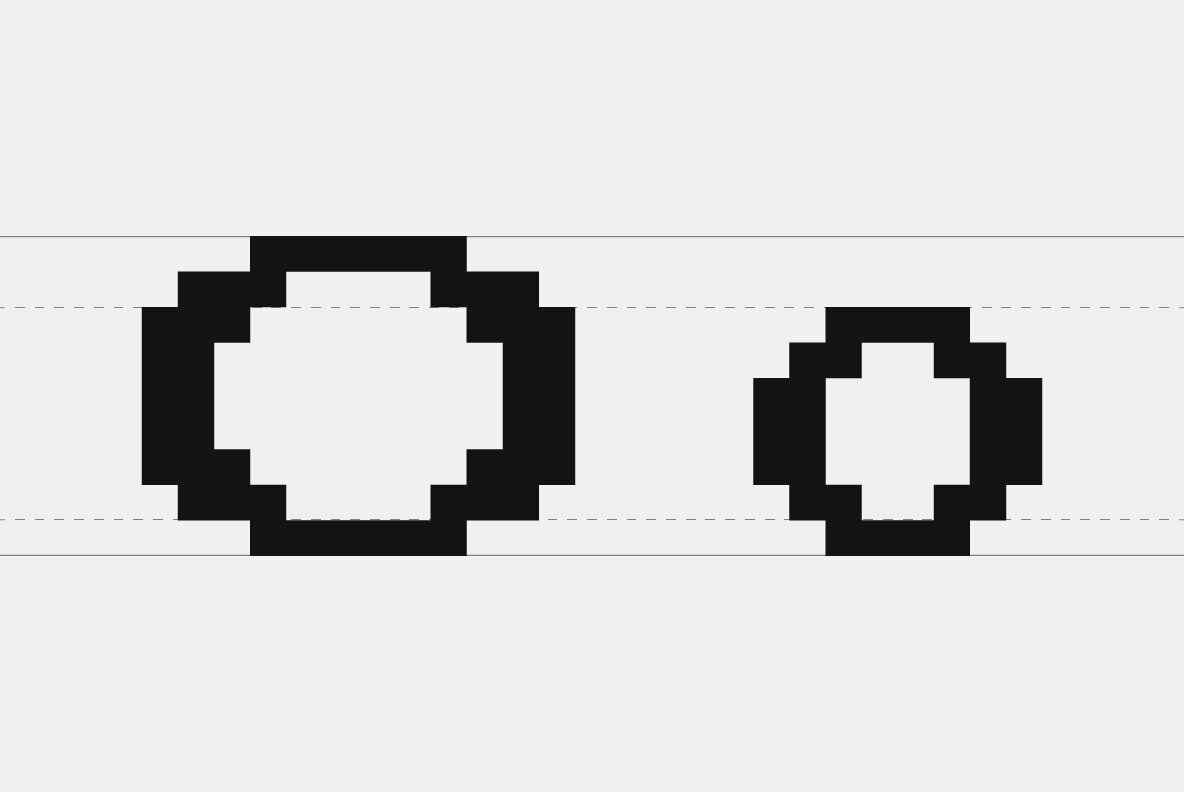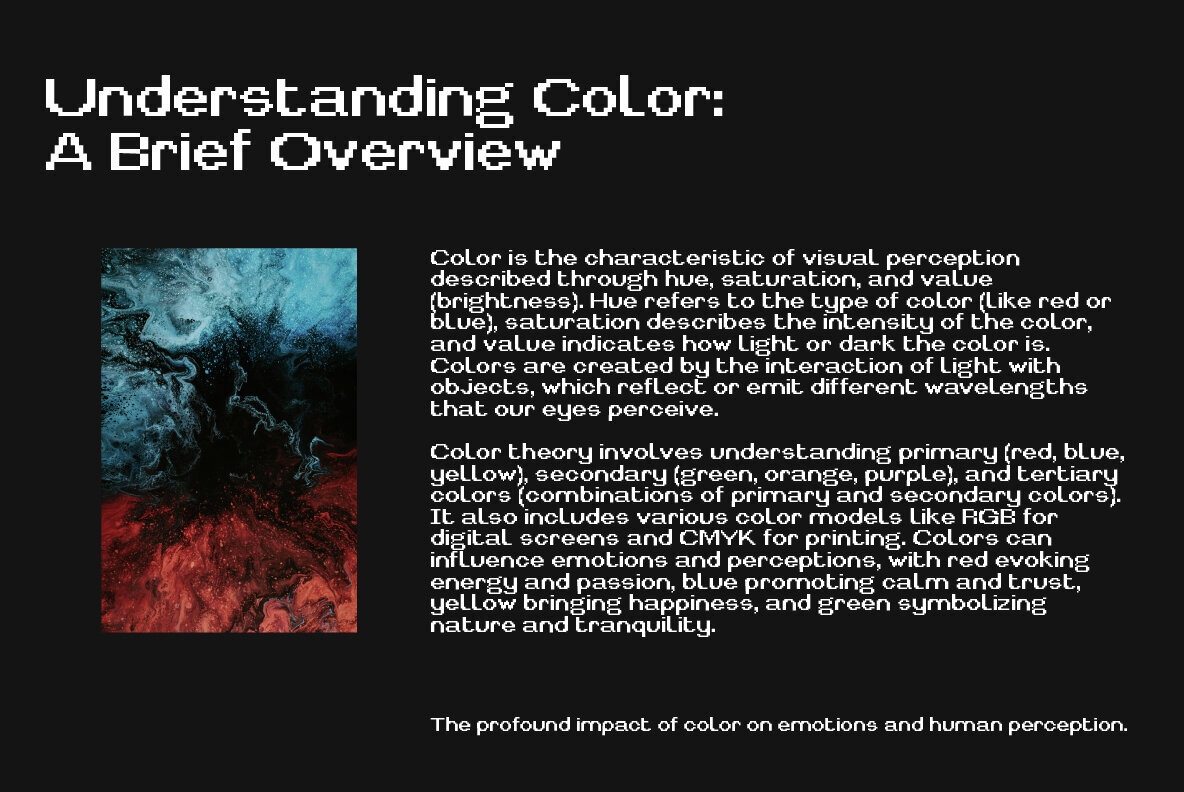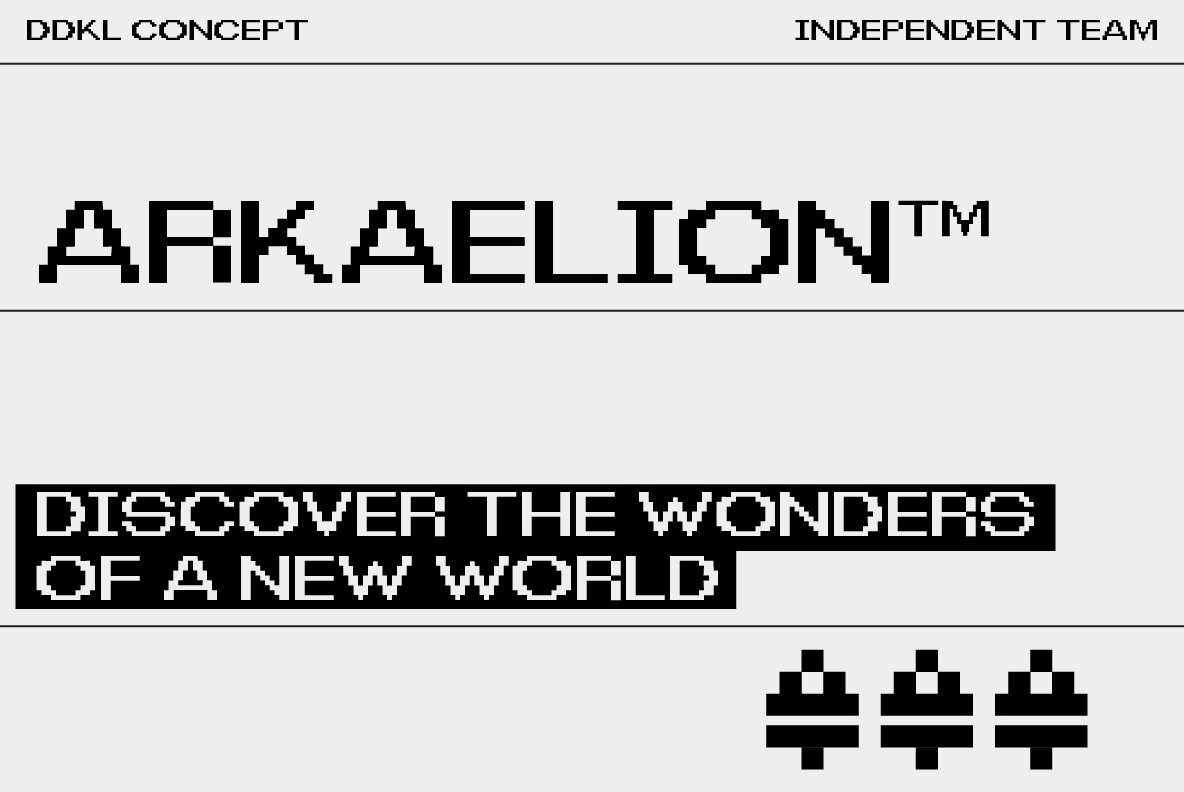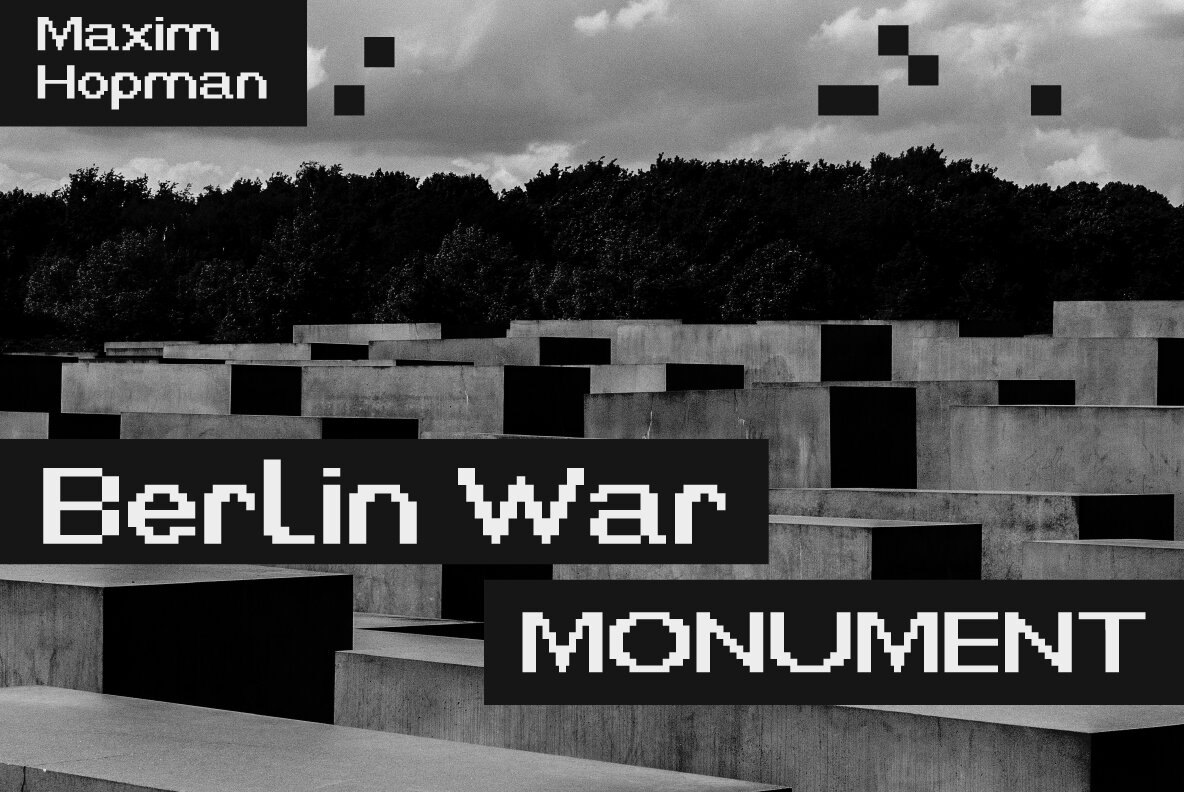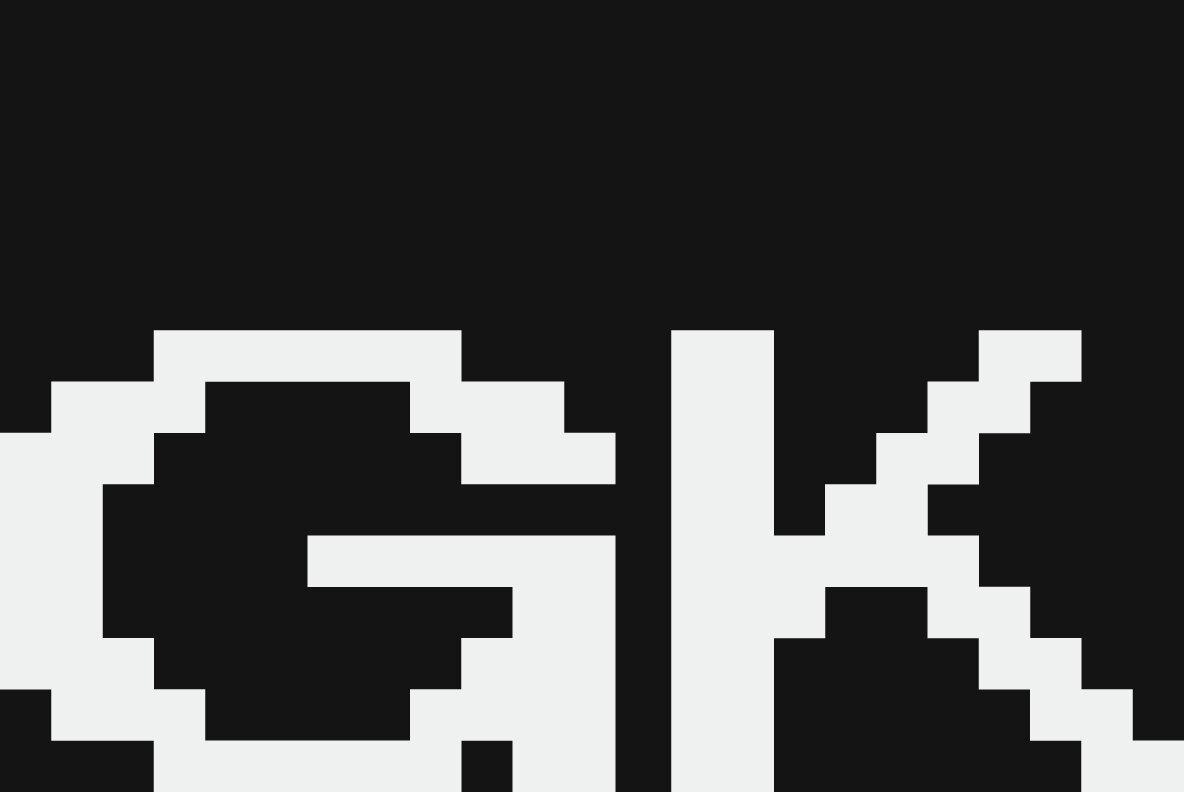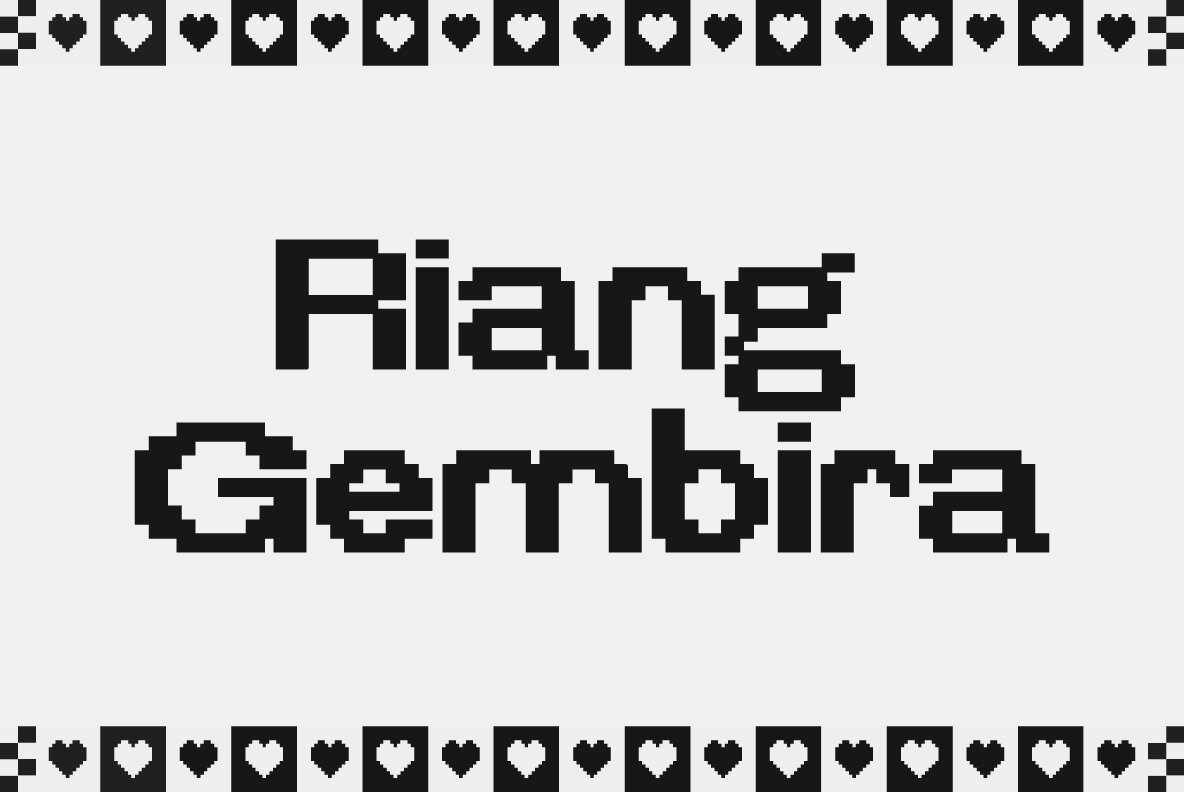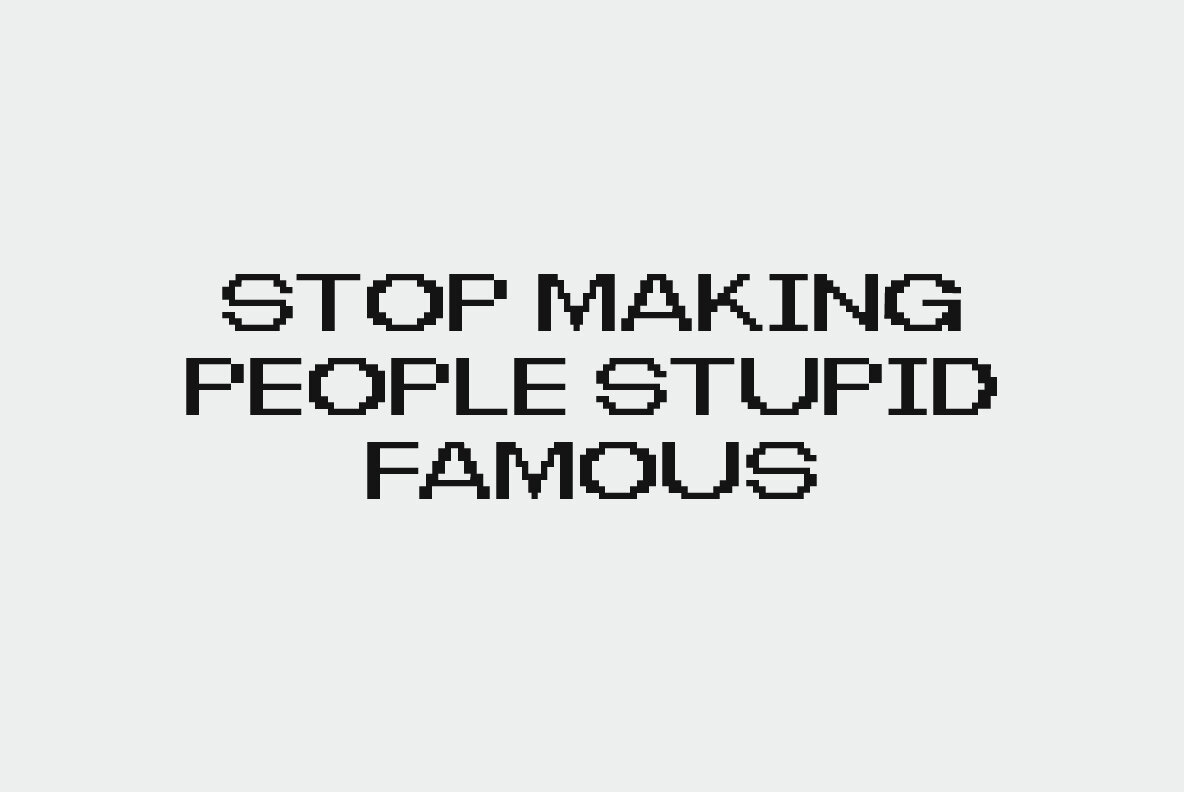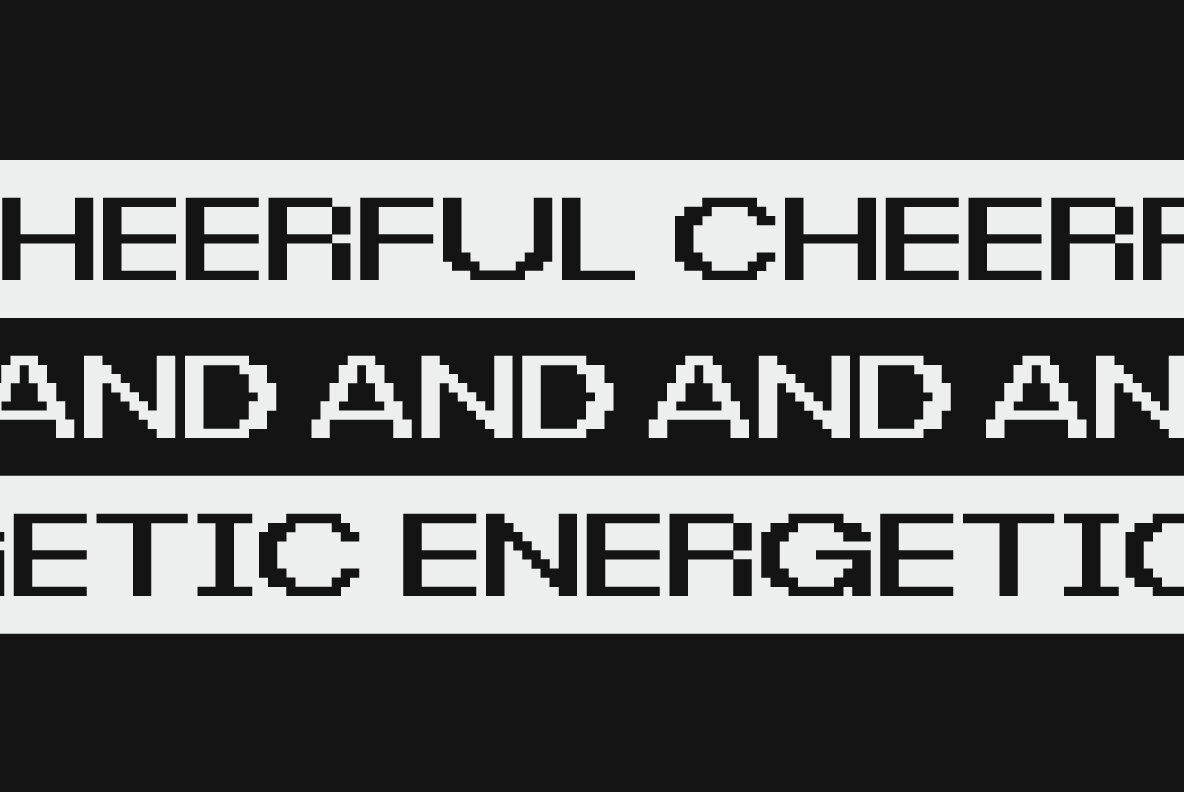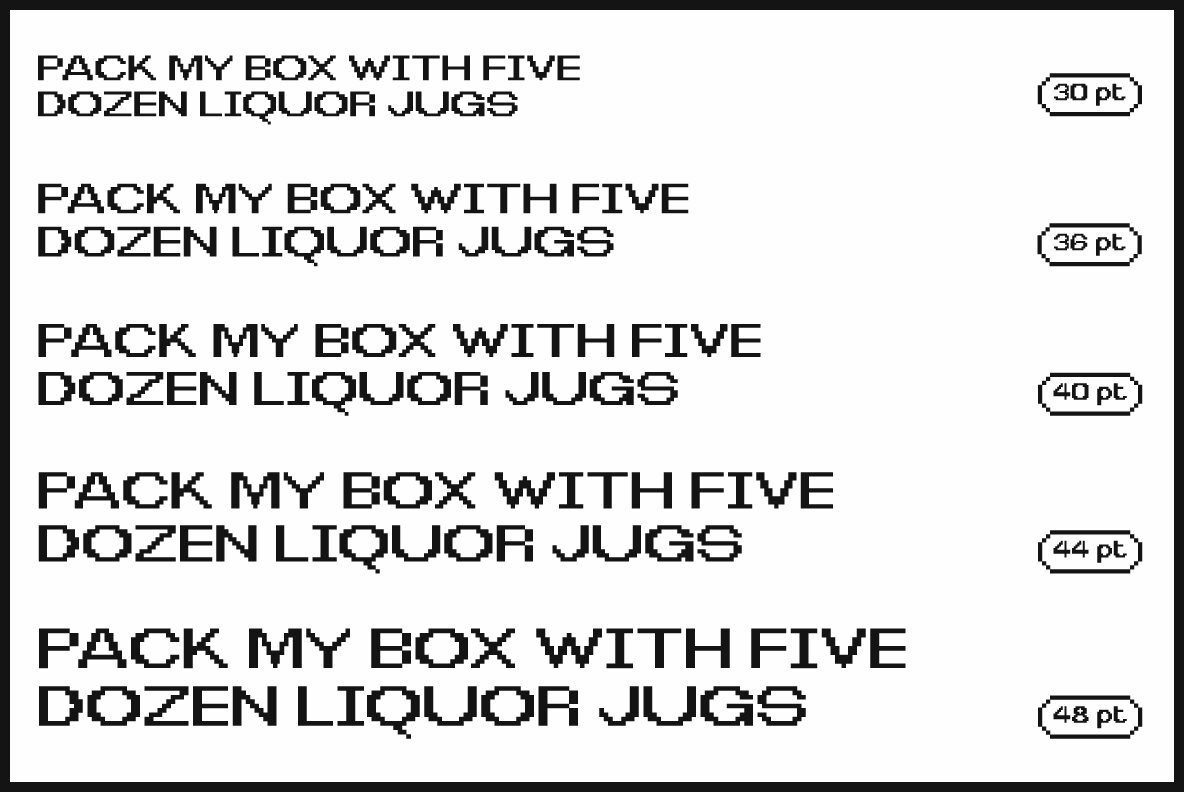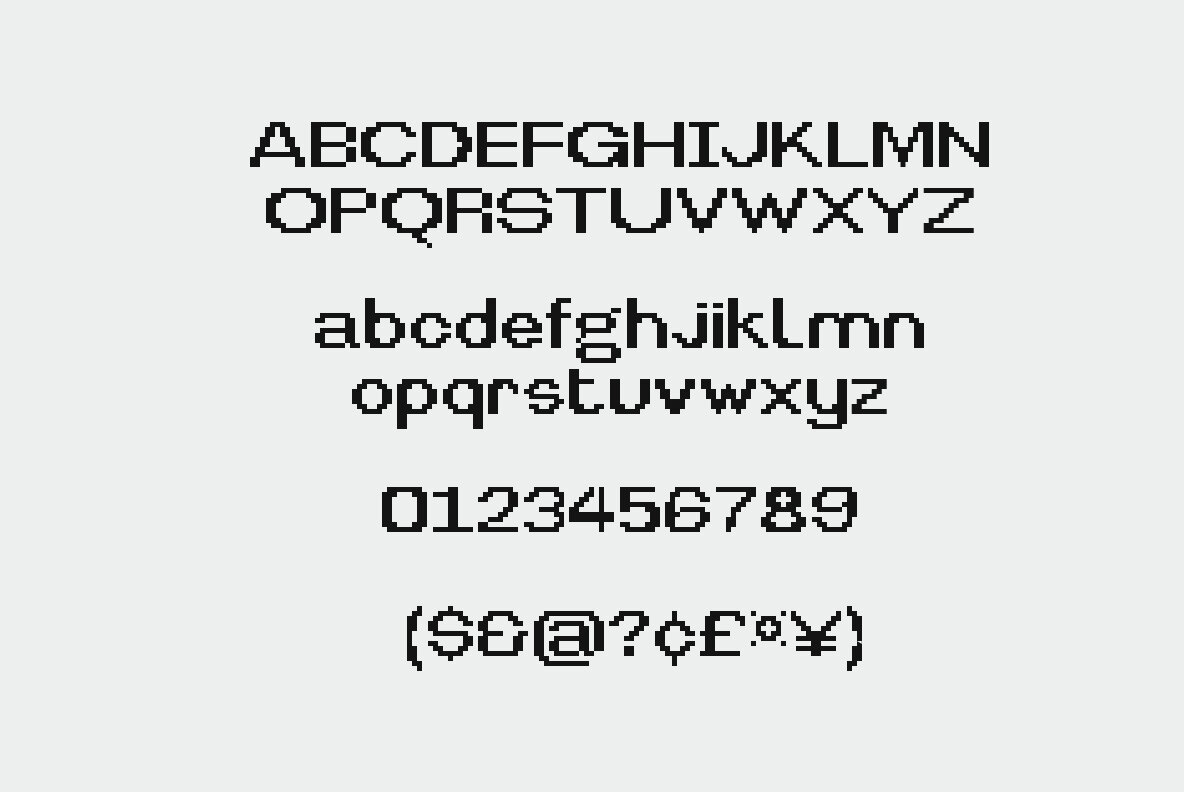
Bitpop Font
Bitpop
Bitpop is a strikingly unique typeface that brings a dynamic pixel theme to life by merging the essence of "bit," the fundamental unit of digital information, with the vibrant energy of "pop." This font captures the excitement of modern digital design with a pixelated flair. Perfect for projects where energy and creativity are key, Bitpop embodies the spirit of contemporary tech and pixel art trends. Each character is carefully crafted to ensure both visual impact and legibility, making it ideal for digital projects, games, pixel art, and tech-inspired branding.
With its bold pixelated design, Bitpop offers a fresh and engaging twist on digital typography. Its distinctive style adds a memorable touch to any design, enhancing both its aesthetic appeal and functionality. Whether you're working on a tech startup, game design, or any project that embraces modern digital aesthetics, Bitpop's pixelated charm and energetic vibe will infuse your work with a burst of innovation and style. Embrace the fusion of creativity and technology with Bitpop, a typeface that bridges the gap between dynamic pixel art and cutting-edge digital aesthetics.